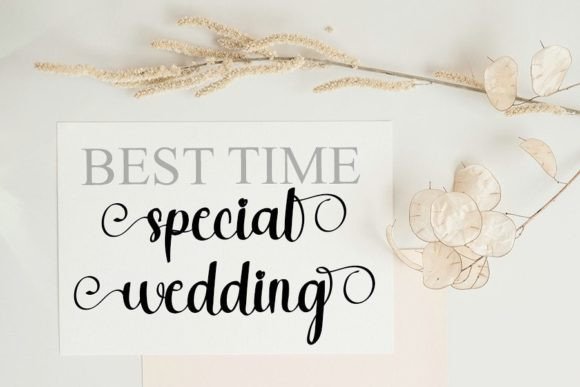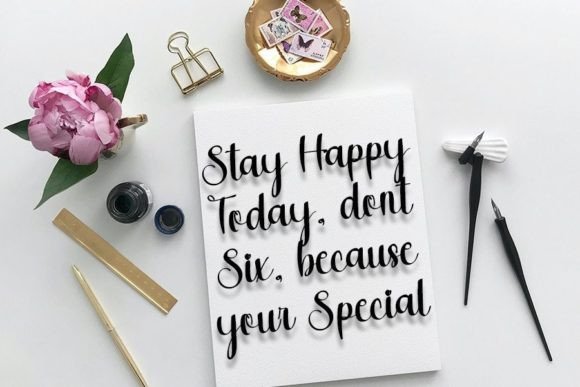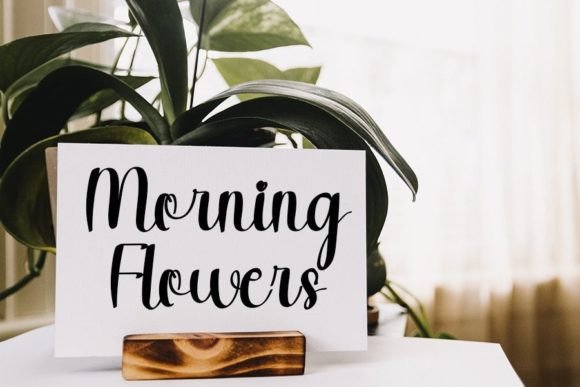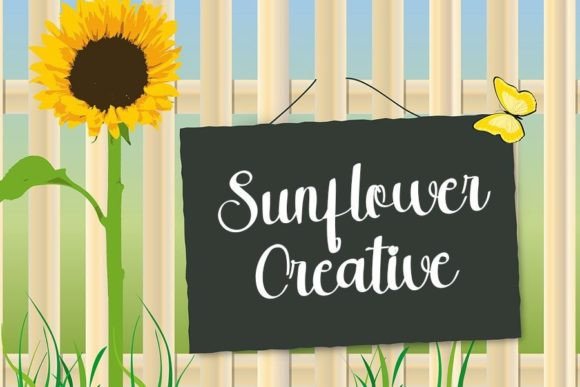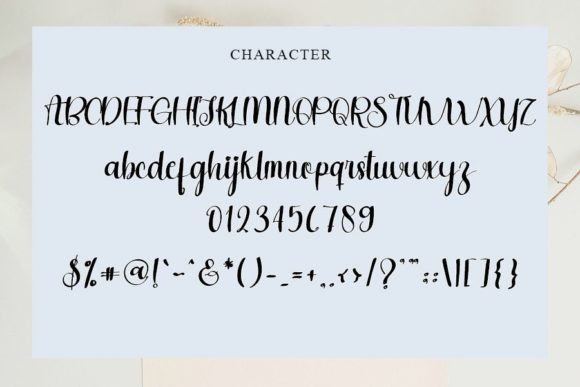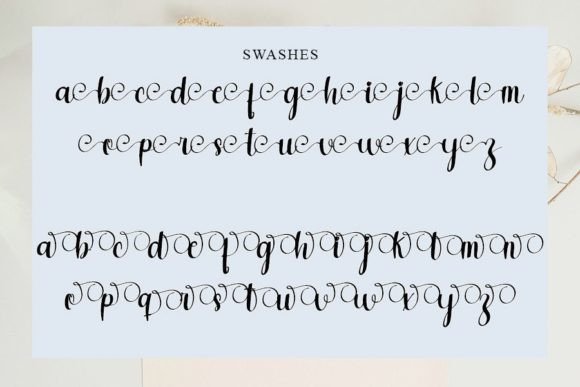
Discover the Elegance of Florida Font: Elevate Your Designs with Style
Are you on the hunt for a font that exudes sophistication, elegance, and a touch of modern flair? Look no further than the Florida Font, a beautiful and refined script font designed to transform your creative projects. Whether you’re a designer, crafter, or simply someone who appreciates the finer details in life, this font is sure to captivate your audience and leave a lasting impression.
The Essence of Florida Font
Florida Font boasts a classy, elegant, and modern look that is versatile enough to be used across a wide range of applications. From logos and branding to invitations, stationery, wedding designs, and social media posts, this font can effortlessly adapt to any project’s needs. Its refined script style is perfect for those who want to add a touch of sophistication and glamour to their work.
Key Features of Florida Font
- Wide Range of Applications: The versatility of Florida Font makes it suitable for various projects, including but not limited to:
- Logos and Branding: Create a lasting first impression with a sophisticated logo that speaks elegance.
- Invitations and Stationery: Add a touch of class to your invitations, greeting cards, and stationery.
- Wedding Designs: Make your wedding designs, such as invitations, programs, and place cards, truly unforgettable.
- Social Media Posts: Elevate your social media content with stylish and engaging posts.
- Elegant and Modern Aesthetic: The font’s design ensures that your projects stand out with a contemporary and refined look, appealing to those with an eye for detail and style.
Why Choose Florida Font?
In a world where first impressions are crucial, having a font that communicates elegance and sophistication can make all the difference. Florida Font is not just a typeface; it’s a design element that can elevate your work from ordinary to extraordinary. Its modern yet classic appeal ensures that your designs are not only current but also timeless.
Tips for Using Florida Font Effectively
To maximize the potential of Florida Font, consider the following tips:
- Pair it Wisely: Combine Florida Font with complementary fonts to create visual interest and hierarchy in your designs.
- Experiment with Sizes and Weights: Don’t be afraid to play around with different sizes and weights to add depth and emphasis to your text.
Florida Font is a powerful tool for designers and crafters looking to infuse their projects with a sense of elegance and modernity. Its versatility, combined with its refined aesthetic and PUA encoding, makes it an excellent choice for a wide array of applications. Whether you’re looking to create stunning logos, beautiful invitations, or captivating social media posts, Florida Font is sure to help you achieve your design goals with style.